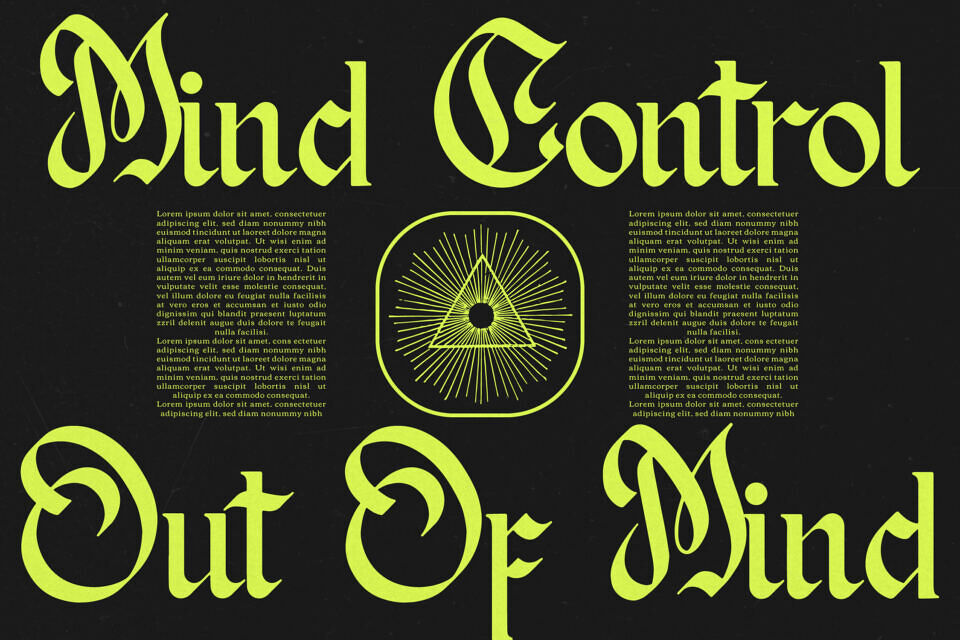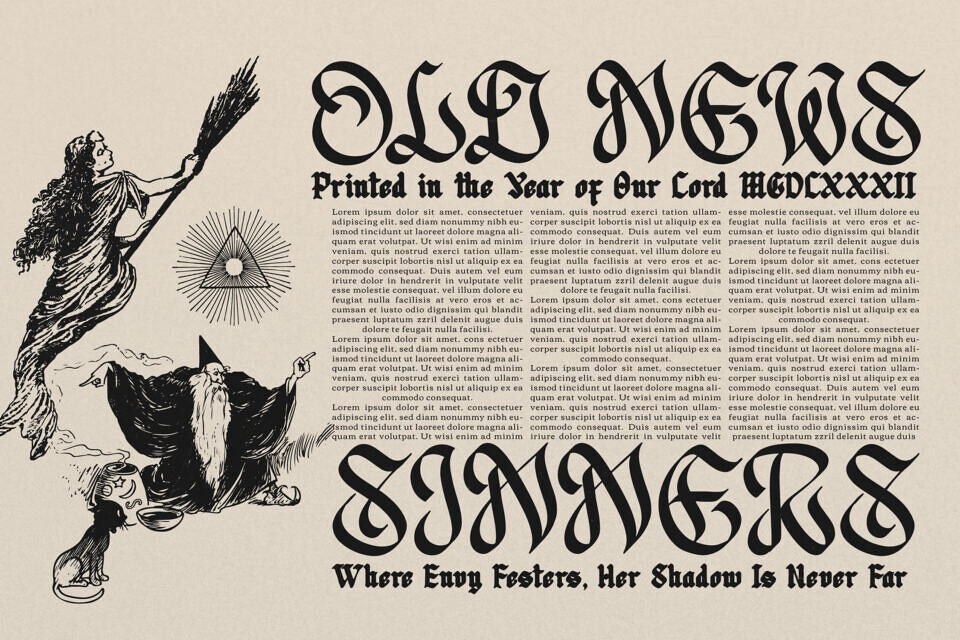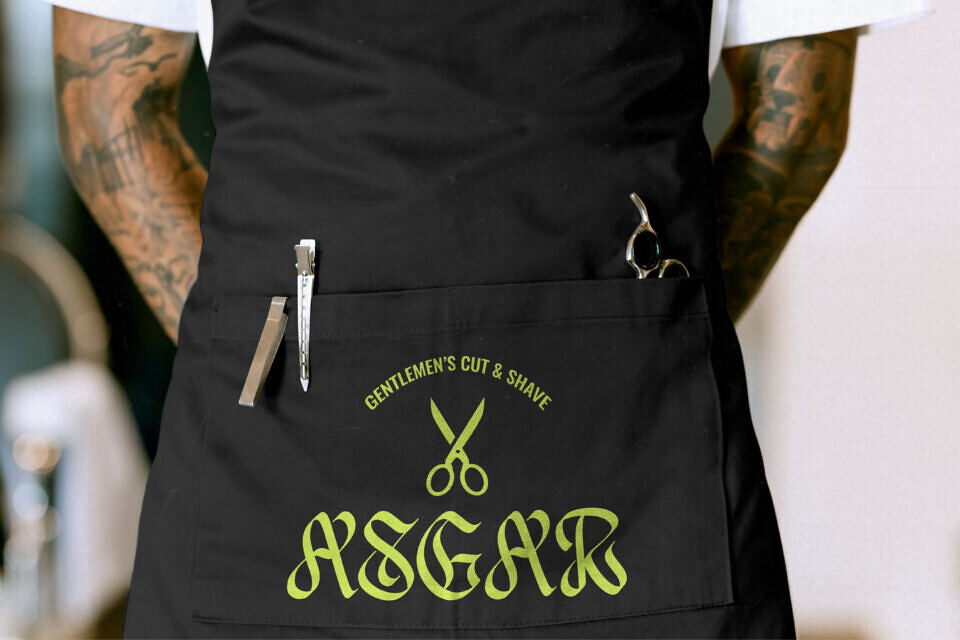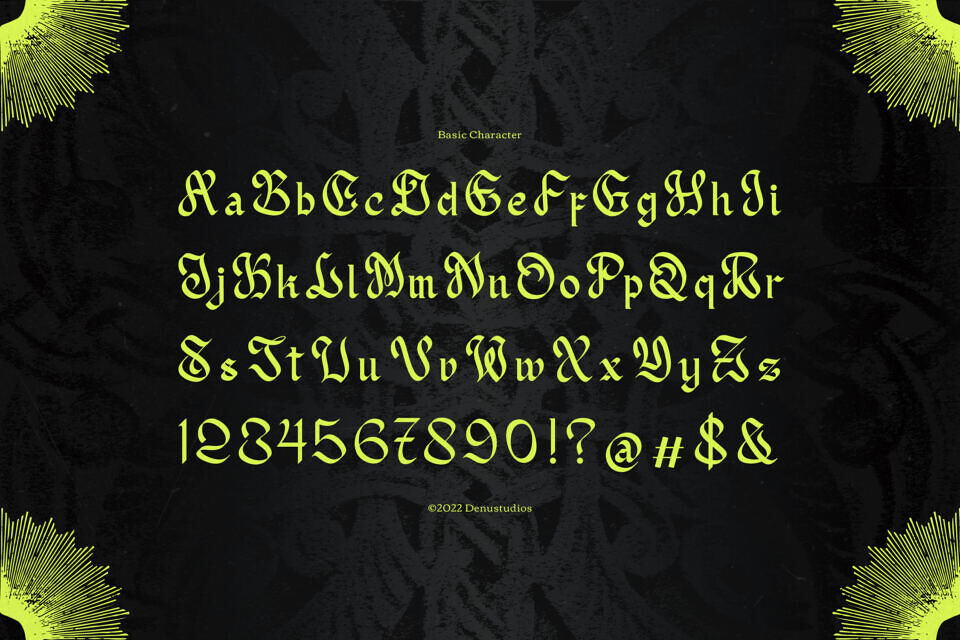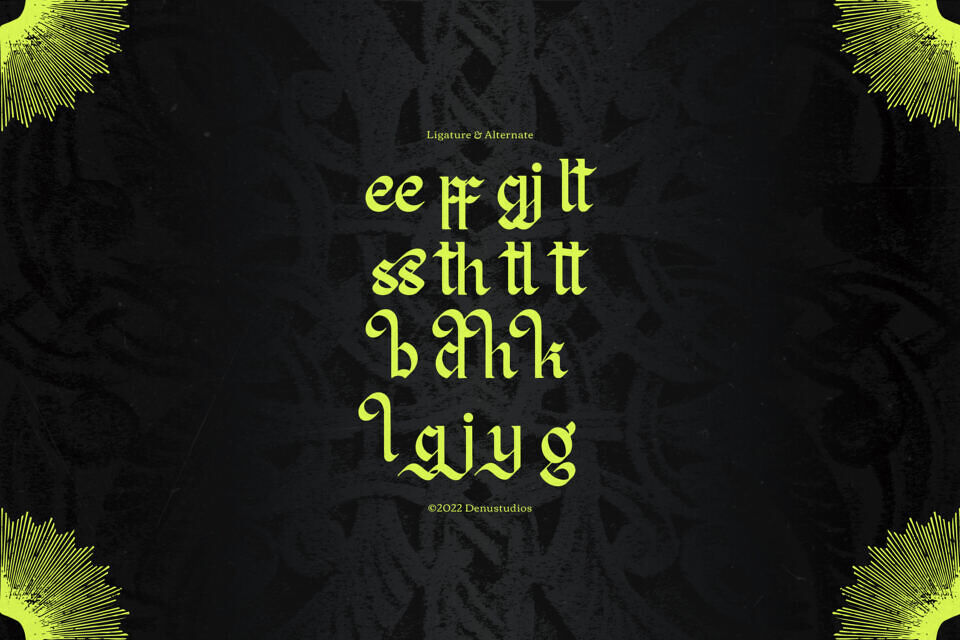
Redagon Font
This Redagon typeface is a modern interpretation of the classic blackletter style, featuring sharp, flared serifs and unique ligatures that give it a “Display Gothic” feel. It is the perfect Redagon font for high-end streetwear, fantasy book covers, and luxury branding that wants to convey a sense of mystery and heritage.
With its “extended character options,” the Redagon typeface offers incredible versatility for custom logo design and intricate titling. The balance between its sharp angles and flowing curves makes the Redagon font feel both aggressive and sophisticated.